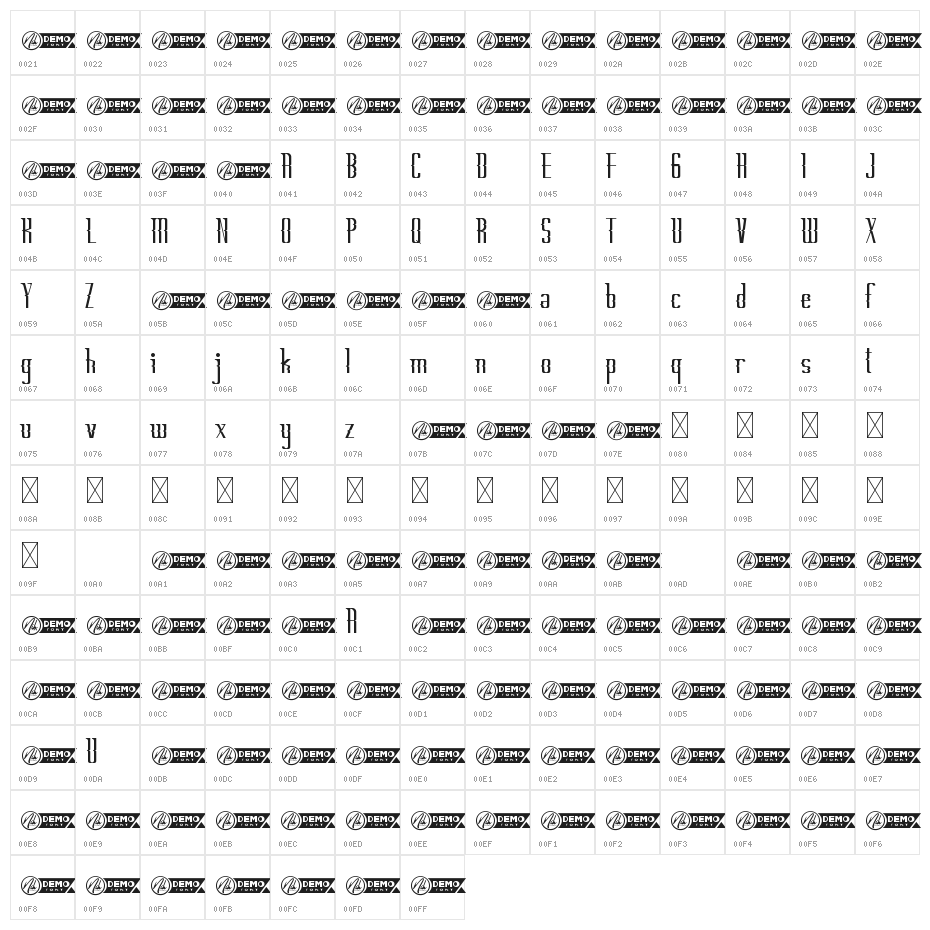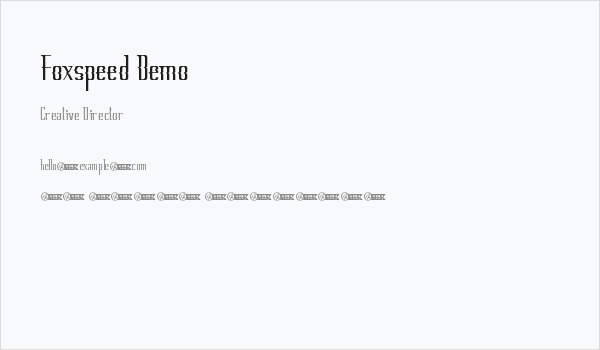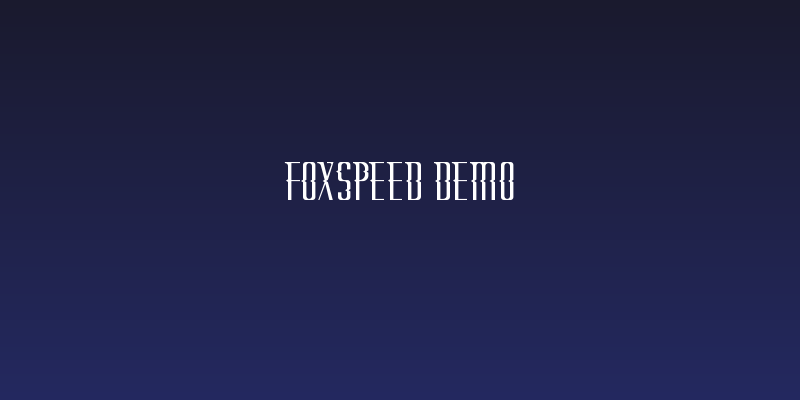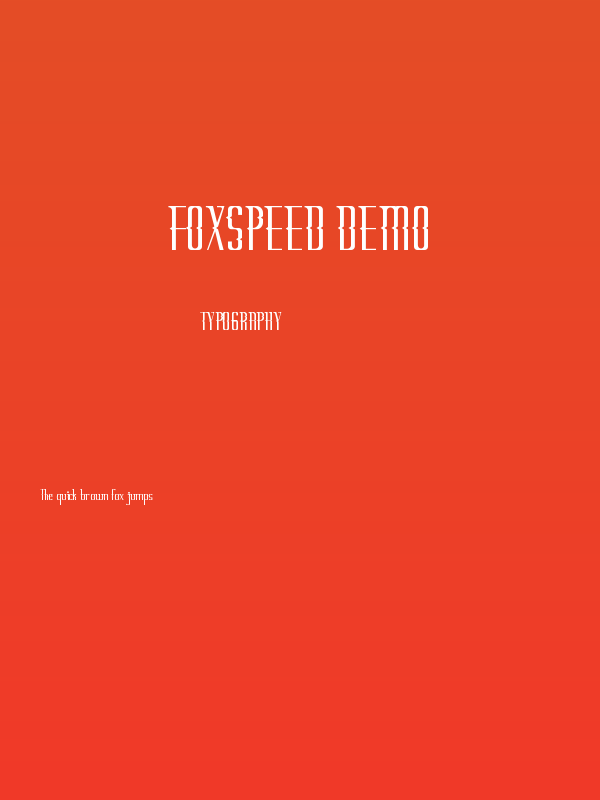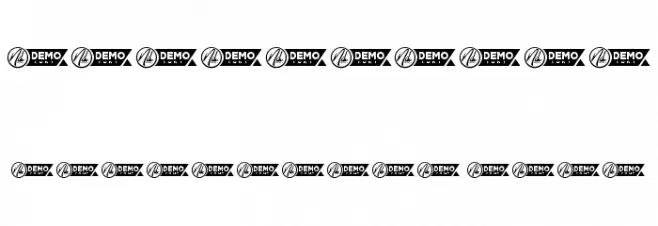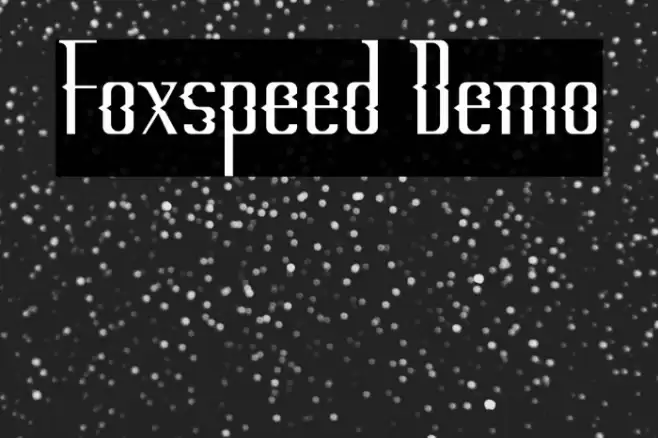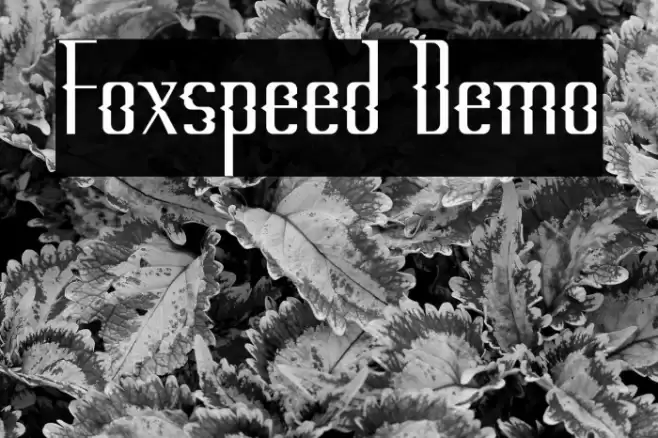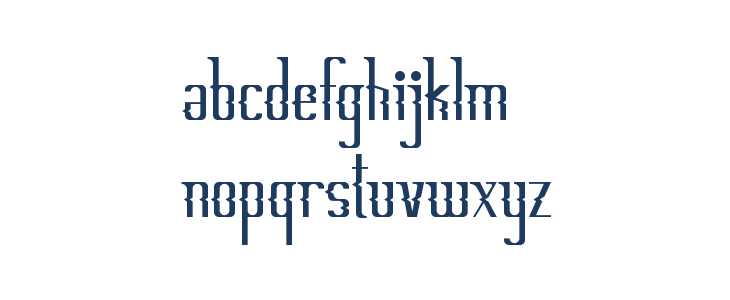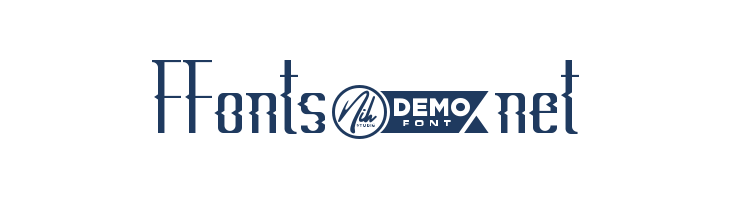
Foxspeed Demo Font
Foxspeed Demo Description
This font features a bold and striking design with a distinct geometric and angular style. The uppercase letters are tall and narrow, with sharp edges and a unique cut-out effect that adds a modern and edgy feel. The lowercase letters maintain the same angular characteristics, providing a cohesive look across the typeface. The numbers and special characters are designed to match the overall aesthetic, making this font suitable for attention-grabbing headlines and titles. Its unique style makes it ideal for projects that require a bold statement.
| Proposed Projects | Ideal for branding, posters, album covers, and any project needing a bold, modern look. |